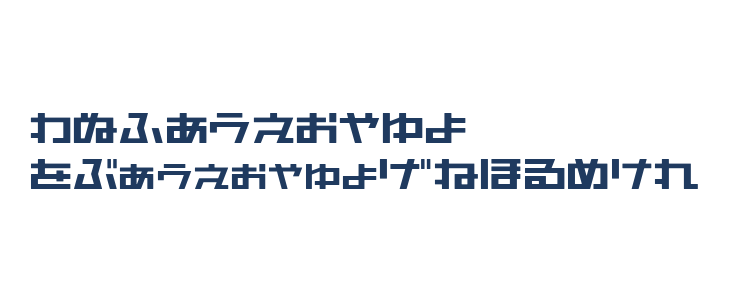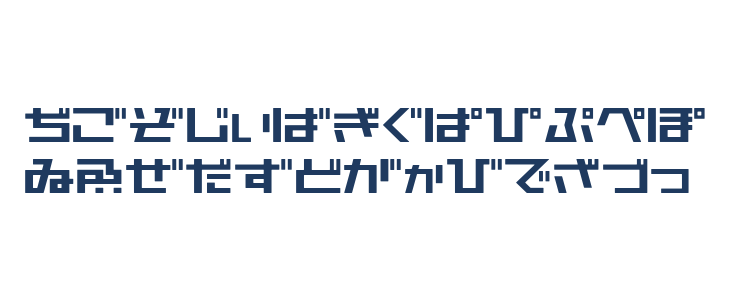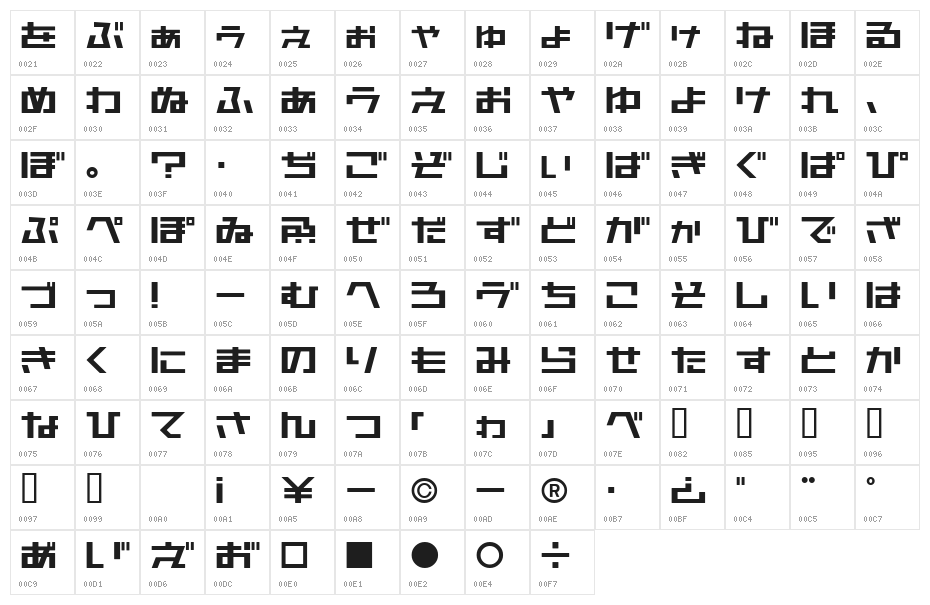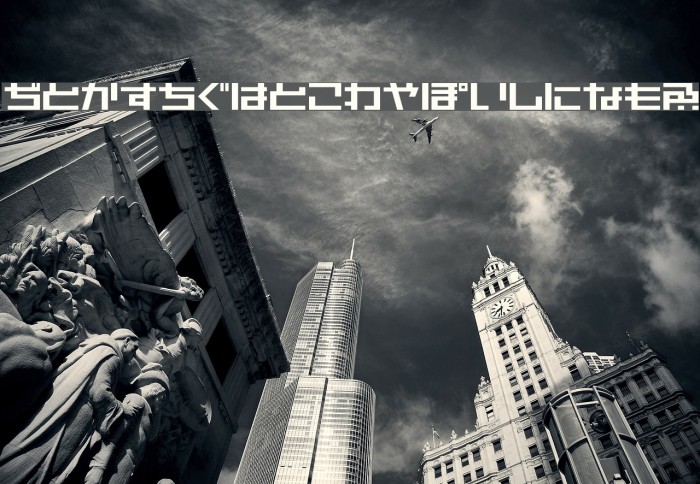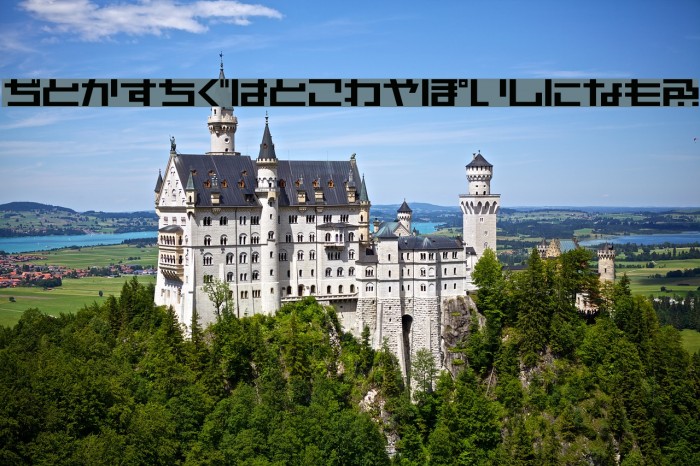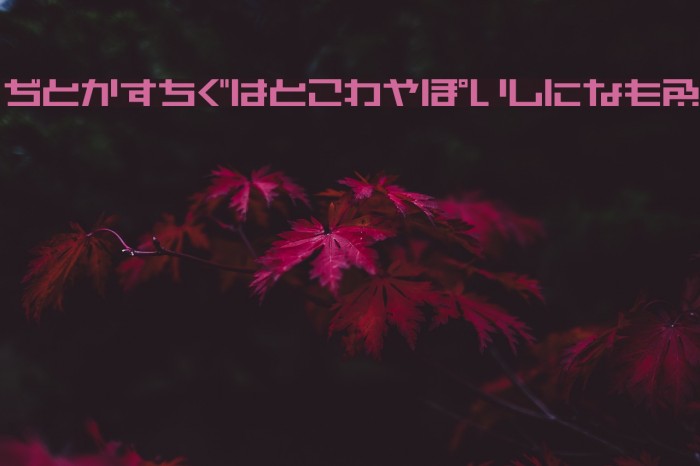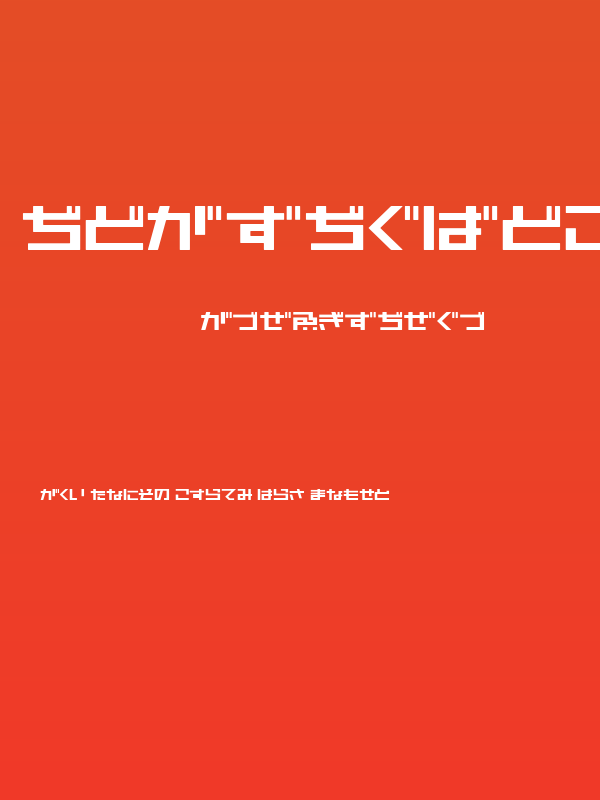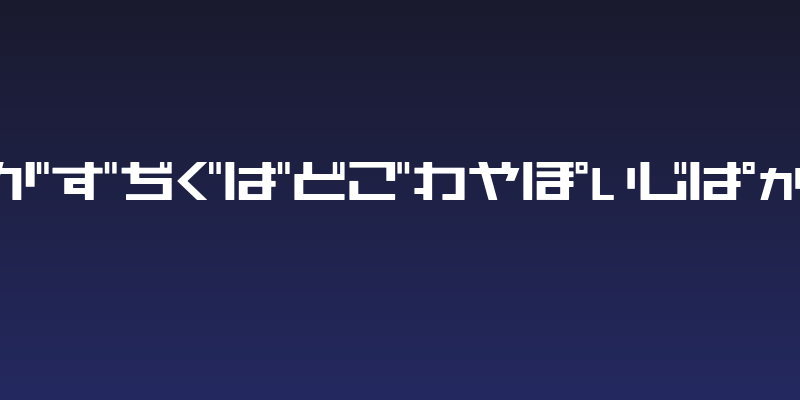
AstraHfsb07MediumO Font
AstraHfsb07MediumO Description
This font features a bold, geometric style with clean, sharp edges and a modern aesthetic. The characters are uniformly structured, providing a sense of balance and consistency across the typeface. The design is minimalistic yet impactful, making it suitable for a variety of applications where clarity and emphasis are desired. The uniformity in stroke width contributes to a cohesive appearance, while the angular forms add a contemporary touch. This font is versatile, offering a strong visual presence that can enhance both digital and print media.
| Proposed Projects | Ideal for branding, headlines, posters, and digital media where a strong visual impact is needed. |